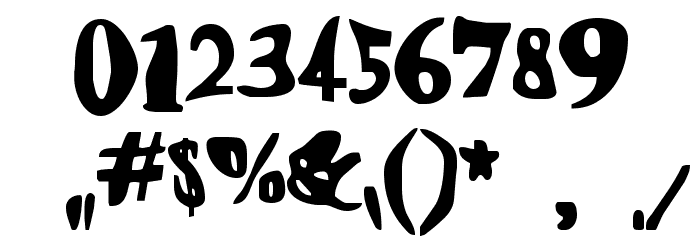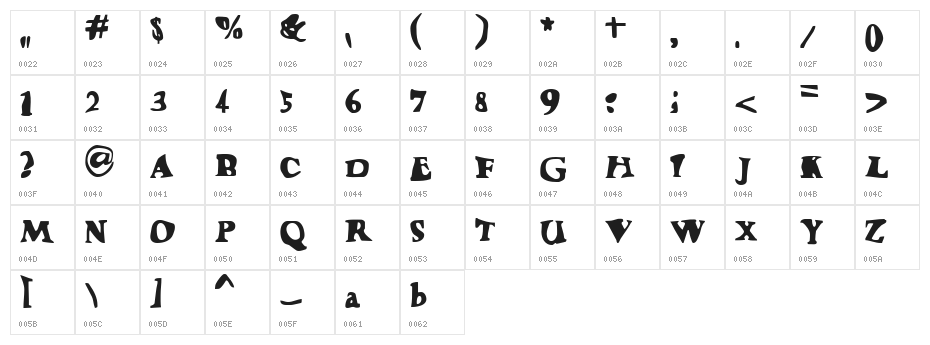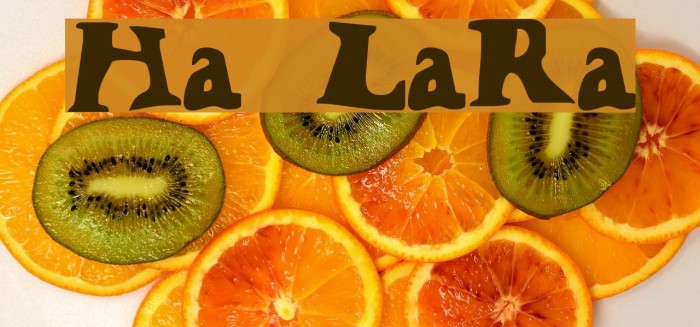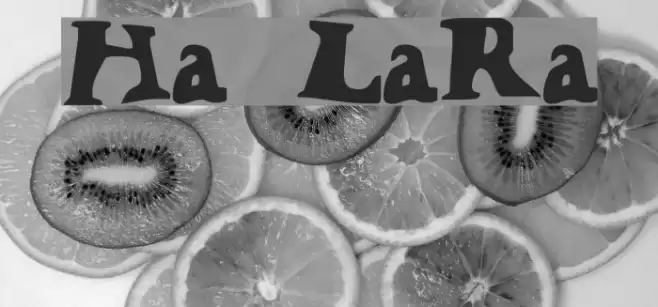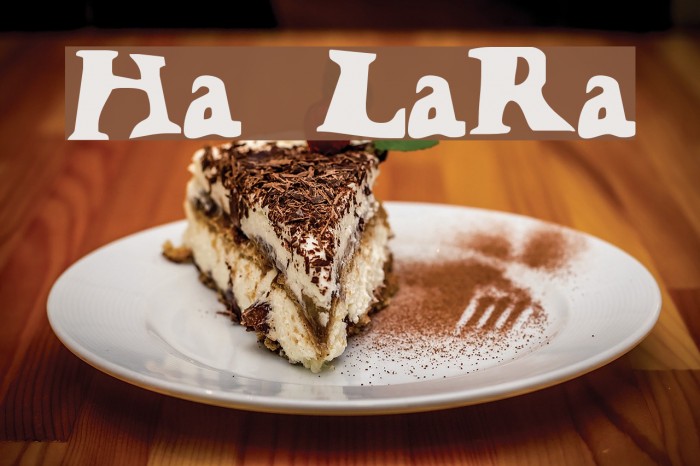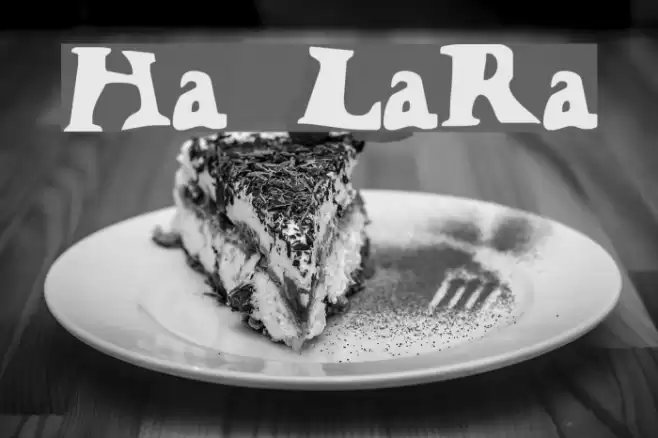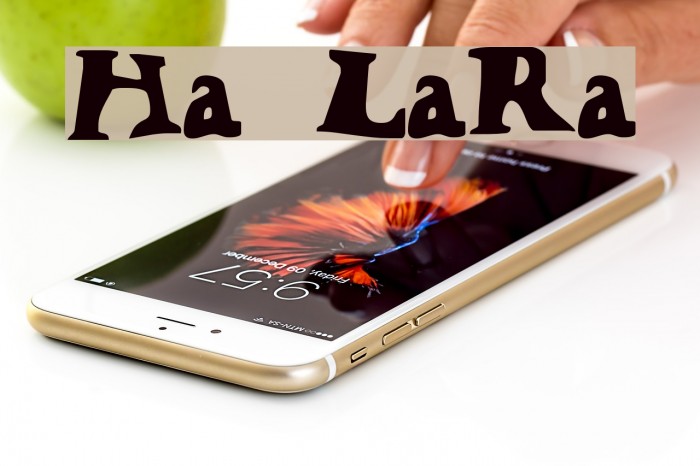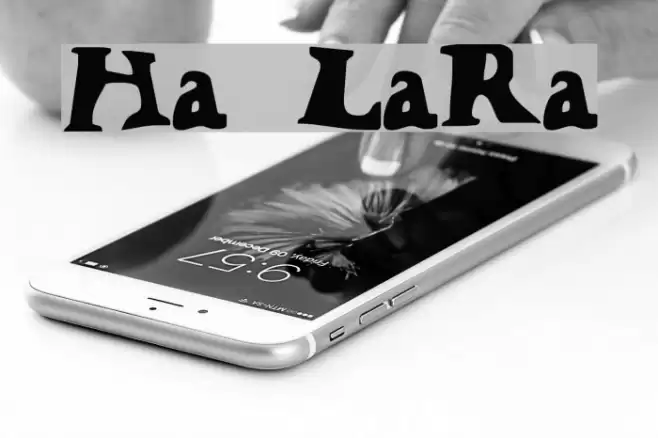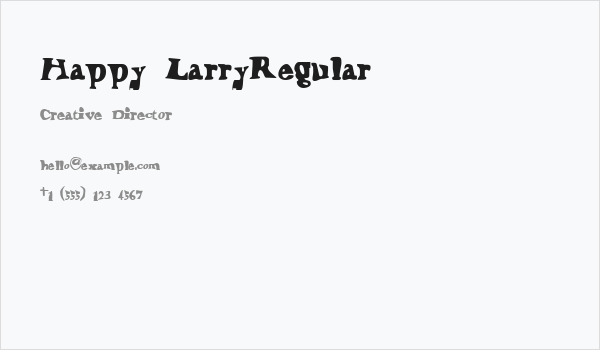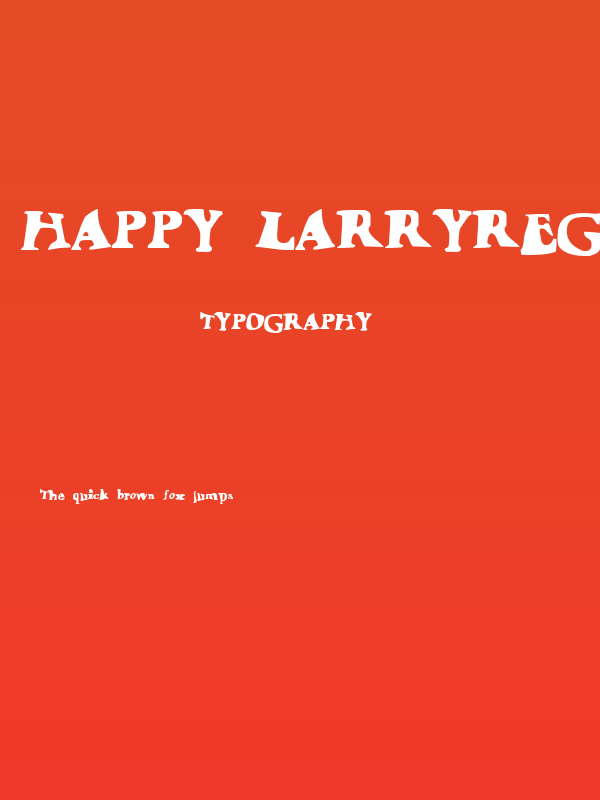
Happy LarryRegular Font
Happy LarryRegular Description
This font features a playful and whimsical design, characterized by its irregular and wavy letterforms. The strokes are bold and uneven, giving it a hand-drawn appearance that adds a sense of fun and creativity. The uppercase and lowercase letters maintain a consistent style, with exaggerated curves and varying widths that create a dynamic and lively look. The numbers and special characters follow the same playful theme, making the font suitable for projects that require a unique and eye-catching aesthetic. Its boldness and distinct style make it ideal for use in creative and informal settings.